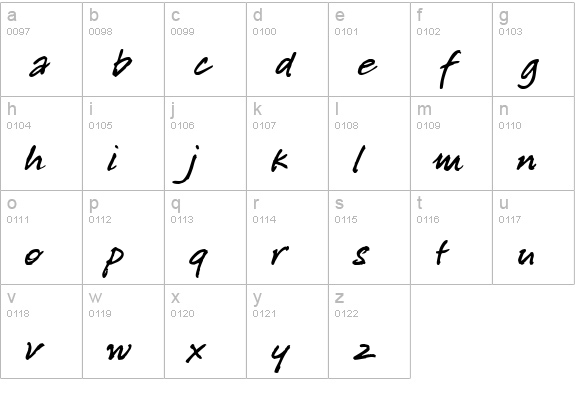
Freely Font Details
Freely font is a unique and versatile typeface that exudes a sense of freedom and creativity. With its elegant curves and modern style, this font is perfect for a wide range of design projects, from branding to print materials. The clean lines and smooth edges of Freely font give it a sophisticated and professional look, making it a popular choice for designers looking to make a statement. What sets Freely font apart is not only its aesthetic appeal but also its accessibility. This font is freely available to download at FontsMarket.com, allowing designers to easily incorporate it into their projects without any hassle. Whether you're working on a personal project or a client's design, Freely font offers a versatile and stylish option that will elevate your work to the next level. So why settle for ordinary when you can choose Freely font and bring a touch of freedom and creativity to your designs? Download it today at FontsMarket.com and start exploring the endless possibilities this font has to offer.